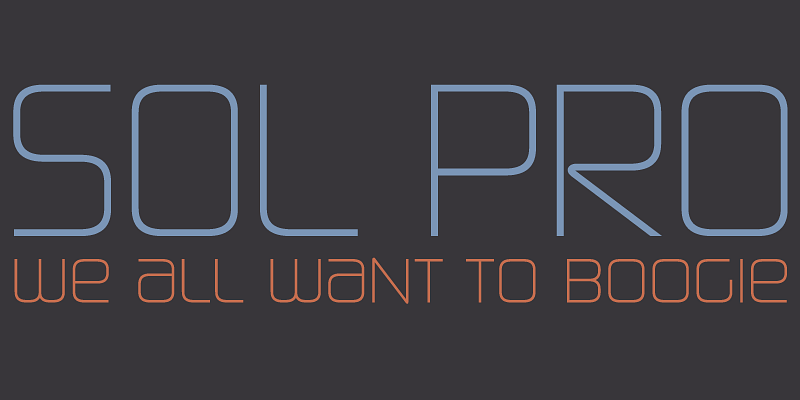
Sol specimen
Sol
Sol is the retooling of the 1973 Goldstein & Smith design. It’s one of the more prominent forefathers and strong influencers of the soft, streamlined aesthetic going strong in branding and packaging design for almost half a century now.